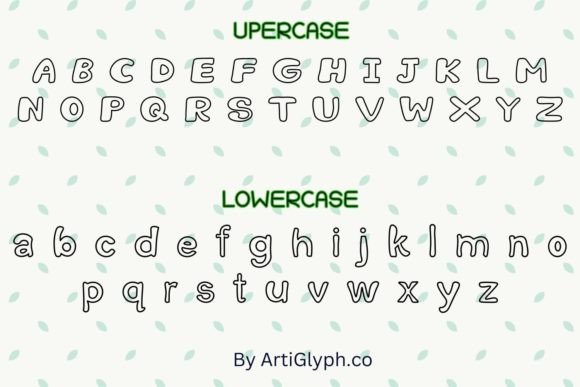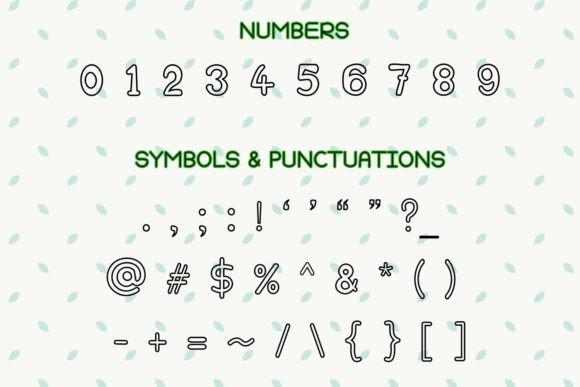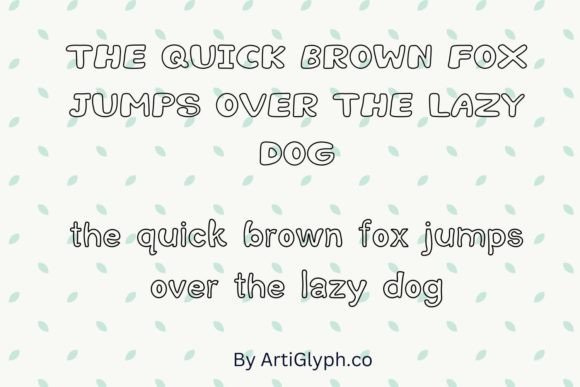
Introduction to Curvystencil Outline Font
Enter the Curvystencil Outline Font, a modern cute handwritten font that’s perfect for adding a touch of whimsy and individuality to your designs. With its irregular and playful letterforms, this font is a game-changer for creative projects that require a high level of customization and a personal touch.
Key Features of Curvystencil Outline Font
- High-quality outline design with a unique curvaceous aesthetic, perfect for creative projects that require a touch of elegance.
- Designed to be highly versatile, suitable for a wide range of creative projects, from logos and branding to digital art and print materials.
- Unique characteristics include intricate details and subtle curves, adding a touch of sophistication to any design project.
Honest Review: Curvystencil Outline Font
I recently had the chance to work with the Curvystencil Outline Font, and I must say it’s been a game-changer for my creative projects. This font is a perfect addition to any design resource collection, especially for those who want to add a touch of elegance to their work.
What works well: ✨ The high-quality design of this font is immediately noticeable, with its sleek and modern aesthetic. I also appreciate that it comes with a transparent background, making it super easy to use as a design element. The font is also incredibly versatile, suitable for a wide range of creative projects, from logos to graphics and beyond.
Some limitations: ⚠️ While the font is great, I did find that it can be a bit overwhelming to use in large quantities. The intricate design can make it difficult to read at smaller font sizes, which is something to keep in mind when using it in your design.
Overall, I’m really impressed with the Curvystencil Outline Font. It’s a great addition to any design resource collection, and I would definitely recommend it to anyone looking for a high-quality font for their creative projects. Plus, it’s available for a free download, which is a definite bonus!
- High-quality design with a modern aesthetic
- Perfect for creative projects, including logos, graphics, and more
The Curvystencil Outline Font is a unique and creative design resource that can add a touch of elegance to any project. With its transparent background and high-quality design, it’s perfect for free download and use in various creative projects.
Use the font to create a sense of hierarchy and visual interest in your design.